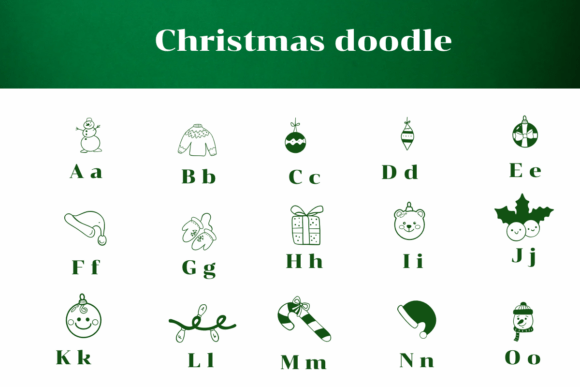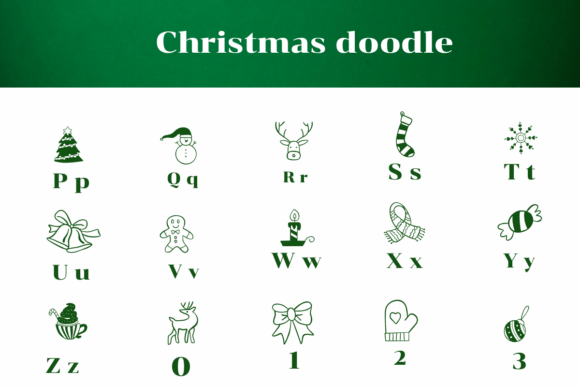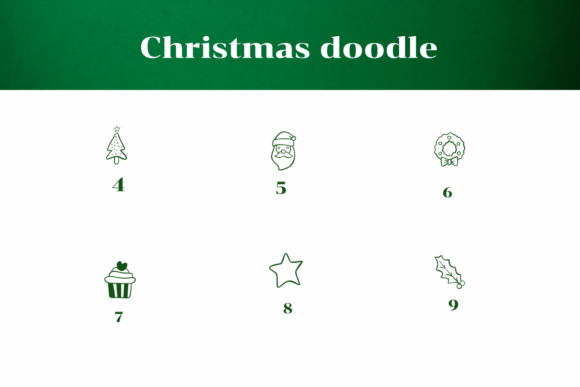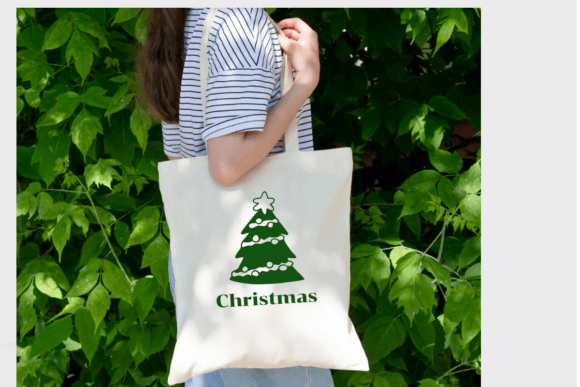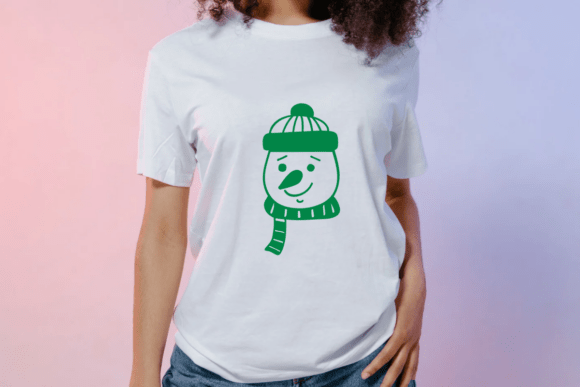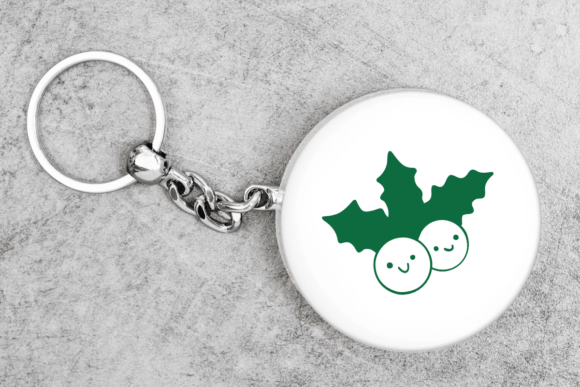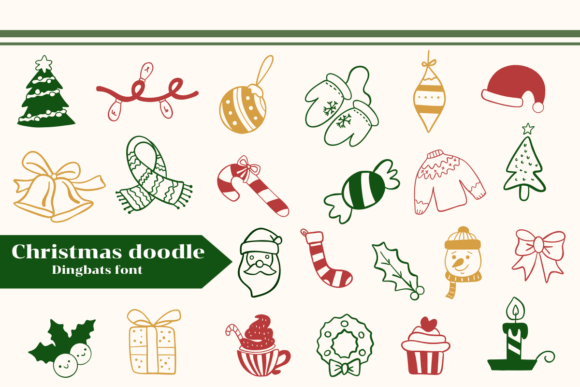
Christmas Doodle Font: Add Festive Cheer to Your Holiday Designs
Are you looking for a fun and playful way to add some festive cheer to your holiday designs? Look no further than the Christmas Doodle Font! This joyful dingbat font is filled with hand-drawn holiday illustrations that are perfect for creating merry and bright Christmas cards, tags, wrapping paper, invitations, and social media posts.
What is Christmas Doodle Font?
Christmas Doodle Font is a unique and charming font that features a collection of hand-drawn holiday illustrations. The font includes a wide range of festive icons, such as Santa, mittens, gifts, candy canes, snowmen, and ornaments, all designed in a playful and cozy line-art style. These delightful doodles are sure to bring a whimsical touch to any winter project.
Perfect for Holiday Designs
Whether you’re designing for kids, families, or just want a lighthearted look, Christmas Doodle Font is the perfect choice. The font’s playful and festive illustrations are sure to make your holiday creations feel extra merry and bright. From Christmas cards and tags to wrapping paper and invitations, this font is ideal for adding a touch of holiday cheer to any design.
Key Features of Christmas Doodle Font
- Hand-drawn holiday illustrations: Each icon in the Christmas Doodle Font is carefully hand-drawn to ensure a unique and charming look.
- Playful and cozy line-art style: The font features a playful and cozy line-art style that’s perfect for creating festive and fun designs.
- Wide range of festive icons: The font includes a wide range of festive icons, including Santa, mittens, gifts, candy canes, snowmen, and ornaments.
- Perfect for Christmas cards, tags, wrapping paper, and more: Christmas Doodle Font is ideal for creating a variety of holiday designs, from Christmas cards and tags to wrapping paper and invitations.
Ideas for Using Christmas Doodle Font
There are countless ways to use Christmas Doodle Font in your holiday designs. Here are a few ideas to get you started:
- Christmas cards: Use the font to create fun and festive Christmas cards for friends and family.
- Holiday tags: Add a personal touch to your gifts with custom holiday tags featuring the Christmas Doodle Font.
- Wrapping paper: Create custom wrapping paper featuring the font’s festive illustrations.
- Invitations: Use the font to create festive invitations for holiday parties and events.
- Social media posts: Add some holiday cheer to your social media posts with festive graphics featuring the Christmas Doodle Font.
Tips for Using Christmas Doodle Font
Here are a few tips for getting the most out of Christmas Doodle Font:
- Experiment with different colors: The font’s line-art style looks great in a variety of colors, so don’t be afraid to experiment and find the perfect hue for your design.
- Mix and match icons: The font includes a wide range of icons, so feel free to mix and match them to create a unique and festive design.
- Add your own text: Use the font in combination with your own text to create a custom and personalized design.
Christmas Doodle Font is a fun and festive dingbat font that’s perfect for adding some holiday cheer to your designs. With its playful and cozy line-art style, wide range of festive icons, and versatility, this font is ideal for creating a variety of holiday designs. Whether you’re a designer, crafter, or just someone who loves the holiday season, Christmas Doodle Font is sure to bring a smile to your face and a touch of festive cheer to your creations.